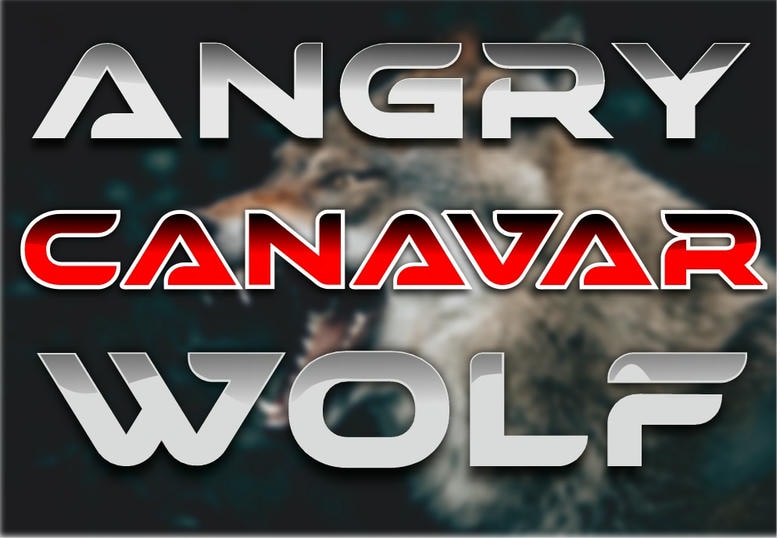
Canavar Font
Canvar Font
Canavar font is classy and beautiful font that can be used for both text and display purpose. This edgy attitude scheme can be incorporated to your favorite designs to would-be-appropriate designs that need a dramatic twist.
Canavar Display Font